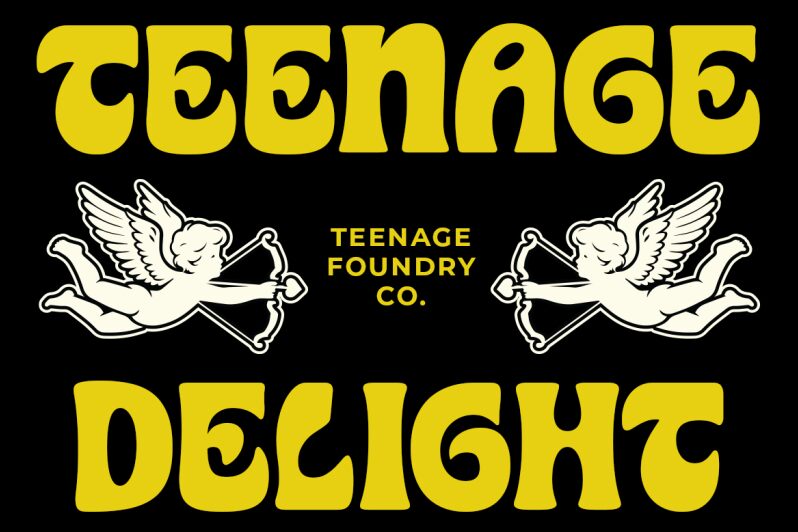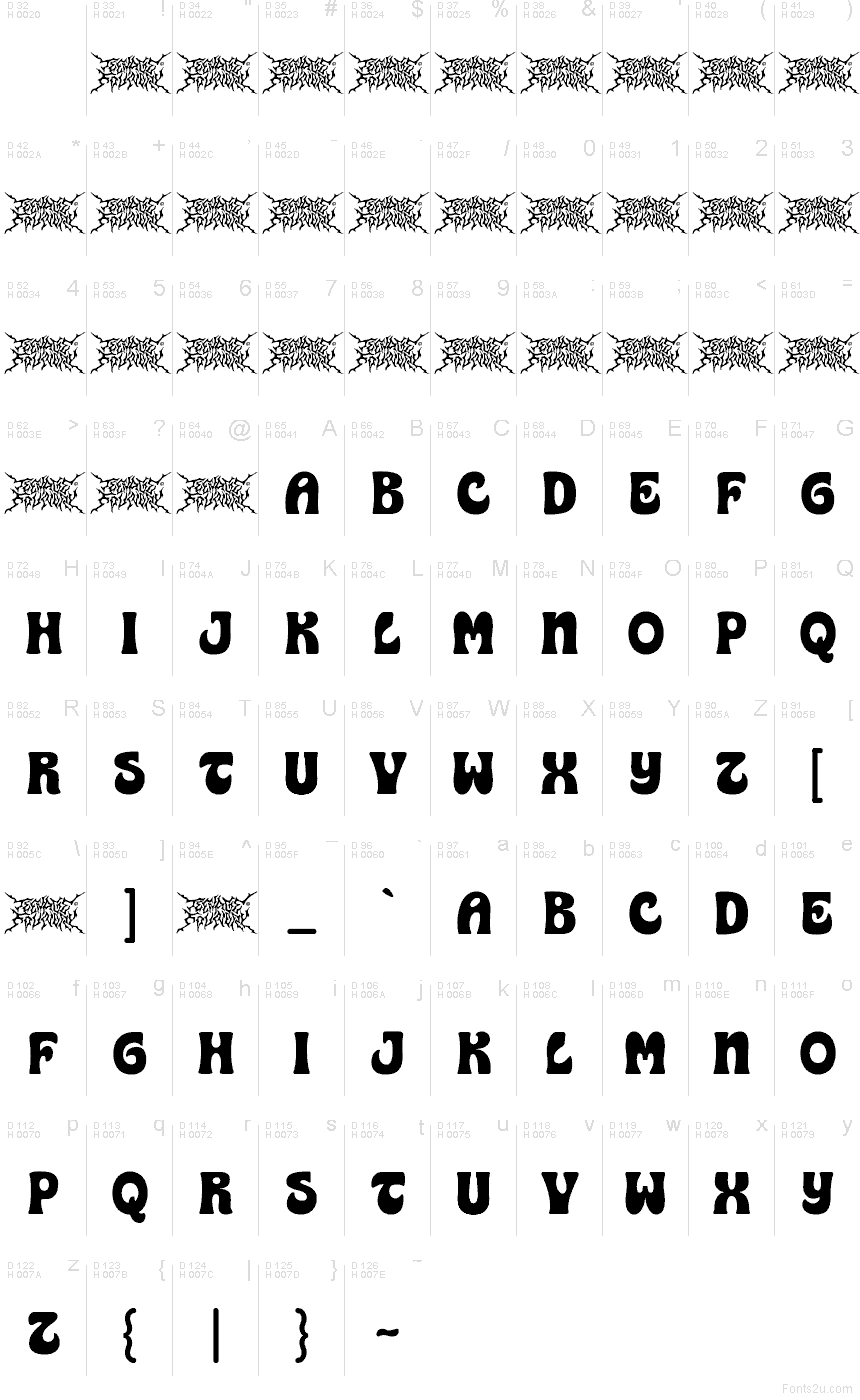
Teenage Delight Demo
Teenage Delight font by Prio Nurokhim Aji of Teenage Foundry is a free groovy decorative font, with chunky, rounded shapes that feel like poured ink—soft, bouncy, and boldly confident. Its exaggerated curves and tight, bubbly spacing give words a playful thump, like vintage posters and lava-lamp lettering without the mess.
Using Teenage Delight shines on album covers, streetwear graphics, sticker packs, retro event flyers, YouTube thumbnails, café specials, and punchy packaging. Keep it large so the thick forms can breathe, and pair this free font with a clean geometric sans for body copy to let the groove do the talking.